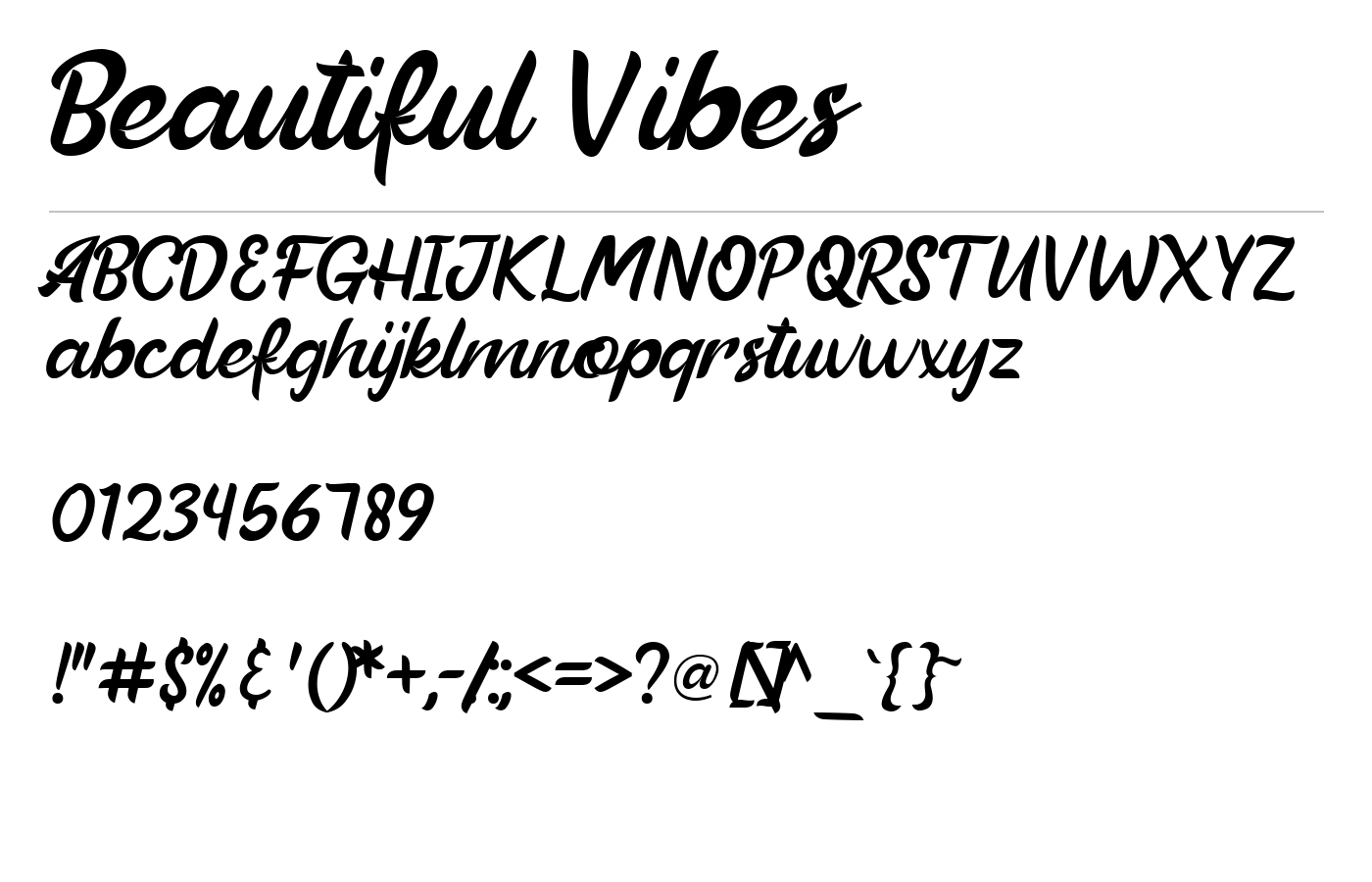
Beautiful Vibes is a lively and elegant script font with a smooth, flowing style that combines bold strokes with gentle curves. Its slightly condensed letterforms and moderate contrast give it a dynamic yet approachable feel, perfect for adding a personal, handcrafted touch to branding, invitations, and creative projects. This font shines in designs that need a warm, stylish, and modern flair with a friendly and expressive personality.
Beautiful Vibes Font
About Beautiful Vibes Font
| Font family | Beautiful Vibes Font |
| Designer | Stringlabs |